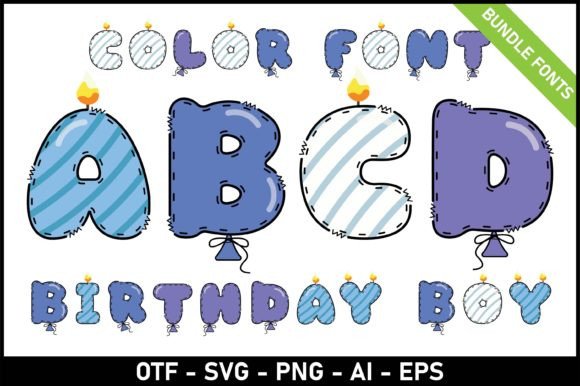
The Joy of Birthday Boy Font: A Designer’s Delight
I still remember the time I was working on a children’s book project, and I was determined to find the perfect font to bring the story to life. The client wanted something playful, fun, and engaging for their young readers. As I scrolled through my font library, I stumbled upon the Birthday Boy Font, and it was love at first sight! ✨ The whimsical design, colorful feel, and ease of readability made it an instant favorite. In this article, I’ll share my experience with the Birthday Boy Font, its features, and how to make the most of it in your designs.
What I Love About Birthday Boy Font
- ✨ Whimsical and playful design that’s perfect for children’s books, posters, and invitations
- ✅ Easy to read, even for young audiences
- 🎨 Highly customizable with OpenType features, glyphs, and stylistic alternates
- 🌈 Colorful and fun, adding a touch of personality to any design
Honest Review: The Quirks and Limitations
While I adore the Birthday Boy Font, there are a few quirks to be aware of:
- 🤔 Limited availability of certain characters and glyphs in some platforms
- ⚠️ May not be suitable for formal or professional designs, as it can come across as too playful
The Designer Inspiration Behind Birthday Boy Font
The Birthday Boy Font was designed with the intention of creating a playful and fun font that’s perfect for celebrations and special occasions. The designer, inspired by the joy of childhood and the magic of birthdays, crafted a font that’s both whimsical and engaging.
| Author | Veil |
| What is the Birthday Boy Font best suited for? | The Birthday Boy Font is perfect for designs that require a playful and whimsical feel, such as children’s books, posters, invitations, and greeting cards. |
| Is the Birthday Boy Font easy to read? | Yes, the Birthday Boy Font is designed to be easy to read, even for young audiences. |